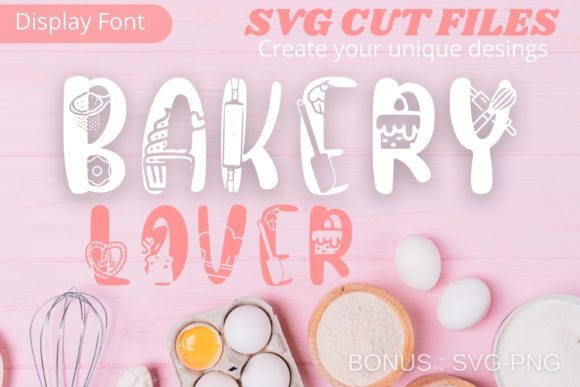
Introducing Bakery Lover Font, the delicious new font that adds a sweet touch of charm to your designs. Let your creativity bloom with this bakery-inspired font that's as versatile as it is captivating.
Dive into a world of delightful possibilities with Bakery Lover Font. This charming decorative font is a confectioner's dream, perfect for adding a sprinkle of sweetness to your logos, branding, and advertisements. It's the perfect ingredient to make your designs stand out and leave a lasting impression.
With Bakery Lover Font, you'll create designs that are as warm and inviting as a freshly baked croissant. Its whimsical and playful style is sure to grab attention, making it the ideal choice for invitations, greeting cards, and planners. Picture your words dancing across the page, each letter a handcrafted delight that brings joy to the eyes.
This delightful font is a versatile culinary artist, equally at home in digital and print. Whether you're crafting blog posts, social media graphics, or eye-catching posters, Bakery Lover Font is the perfect tool to bring your vision to life. Its diverse range of applications makes it a must-have for any creative baker, designer, or entrepreneur.
Don't let your designs be bland and uninspired. Add a dash of sweetness with Bakery Lover Font and watch your creations come to life. It's the perfect font to add a touch of whimsy and delight to any project. So, dive into the world of Bakery Lover Font today and let your creativity soar!